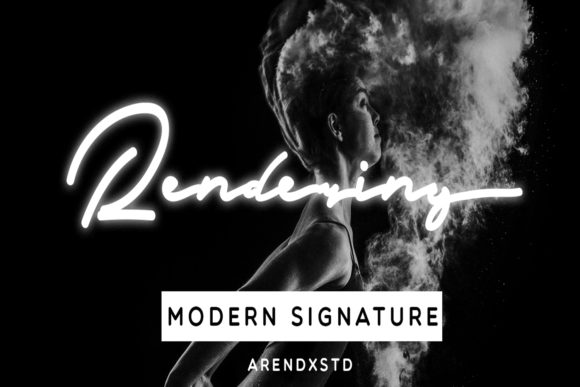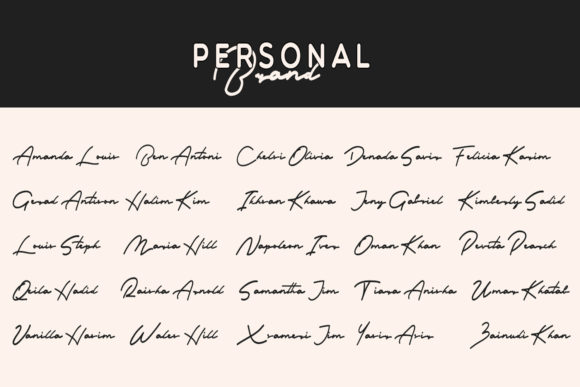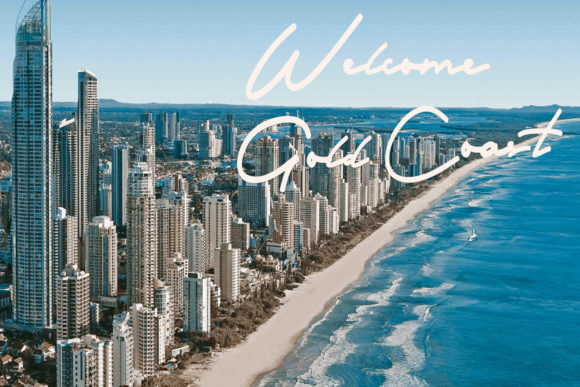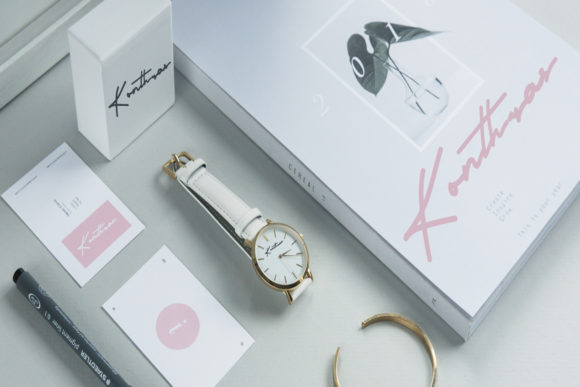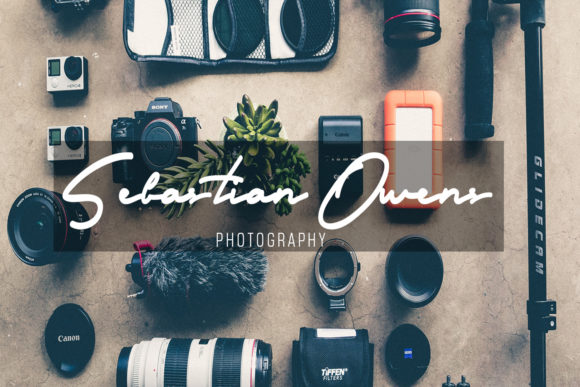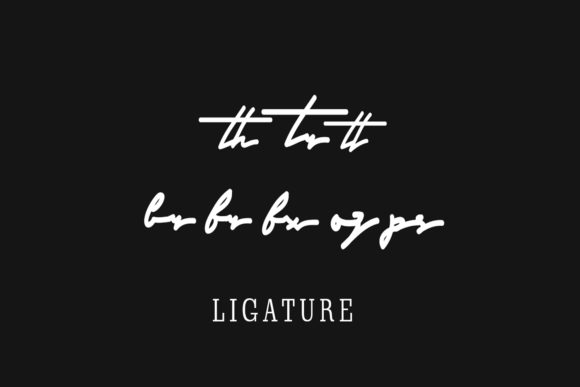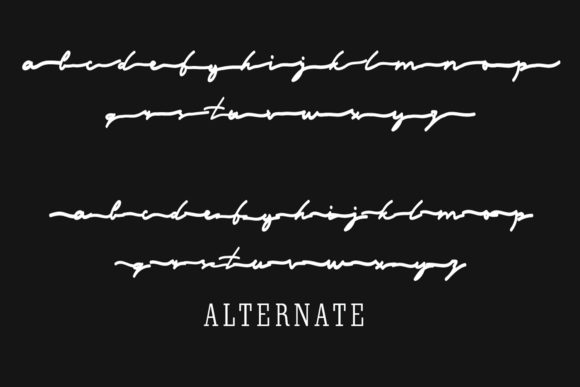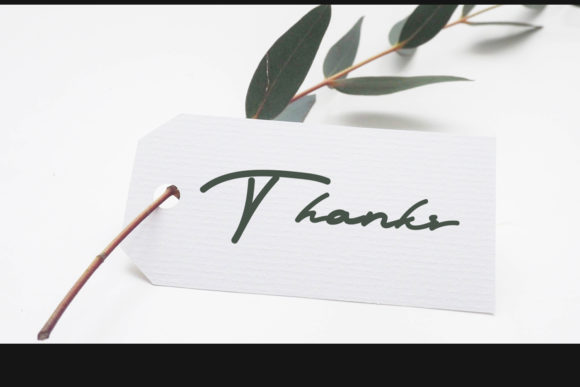
Rendering Font
About Rendering Font
Rendering is a casual, yet cool handwritten font with an organic feel. It will add a personal touch to any design idea!